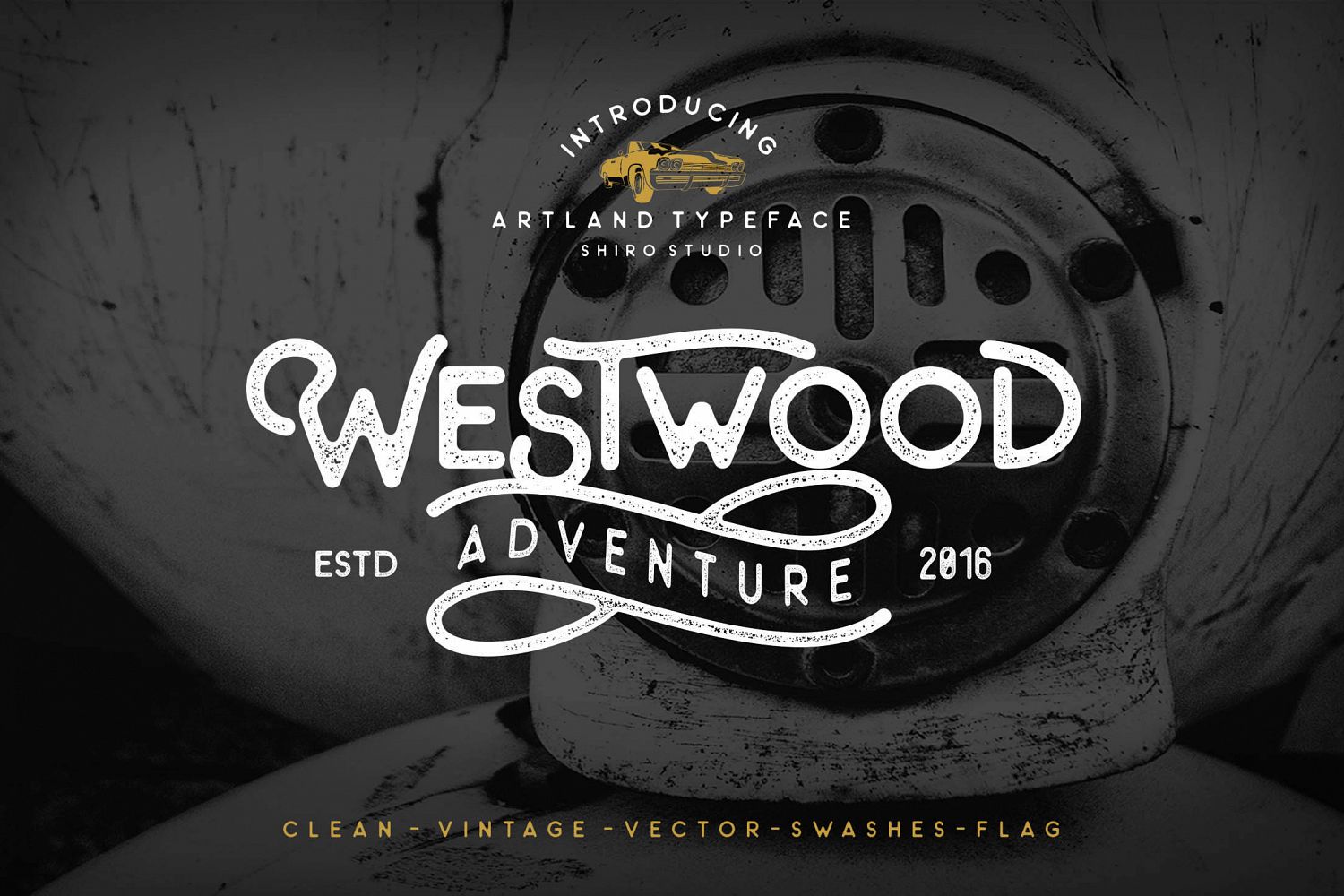
The Artland Typeface + Extras
The Artland Typeface is a stylish sans serif font. The font comes with Clean and Vintage . Very cool for branding, poster, logo, and any other artworks. Using artland will be better if we play the lowercase and uppercase alternate and combining it with swashes and vector packs. Whats Include :
• Multilingual Support
• Stylistic Alternate
• Standar Ligature
Artland Clean.
Artland Swashes.
Artland Vintage.
Artland Word Flag.